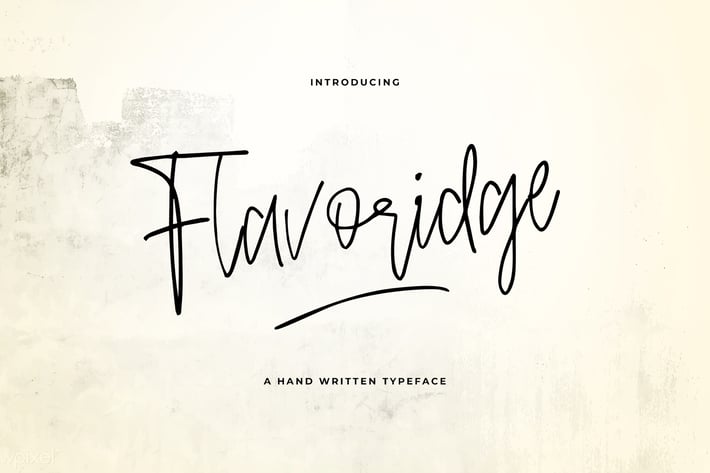
Flavoridge - Handwritten Typeface
Flavoridge is a casual font with natural stroke, comes with uppercase, lowercase, numerals, and punctuation. This font will be perfect pick for various designs & artworks like social media post, brand type, posters, merchandise, packaging, headlines, merchandises, t-shirt, and many more..